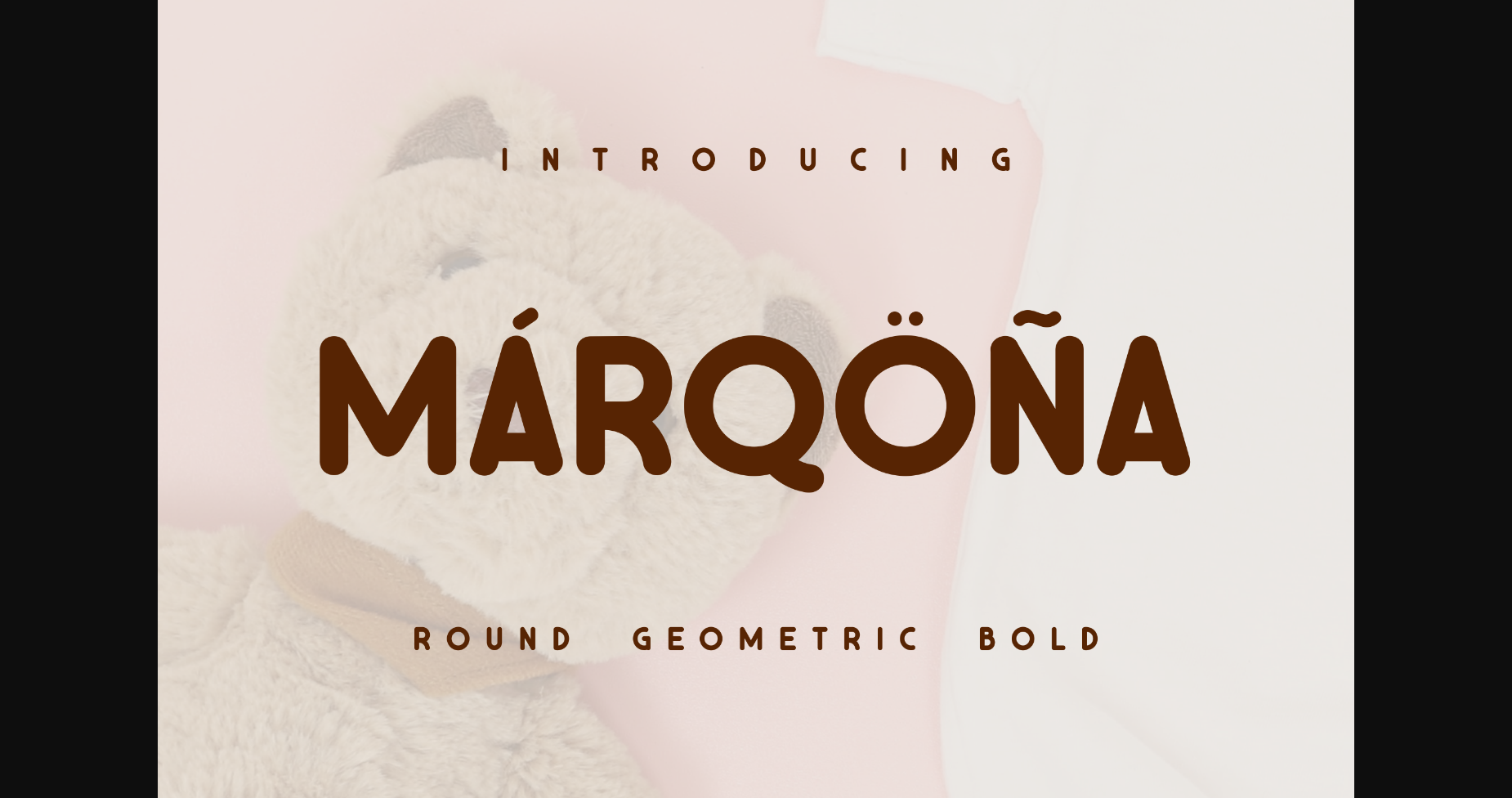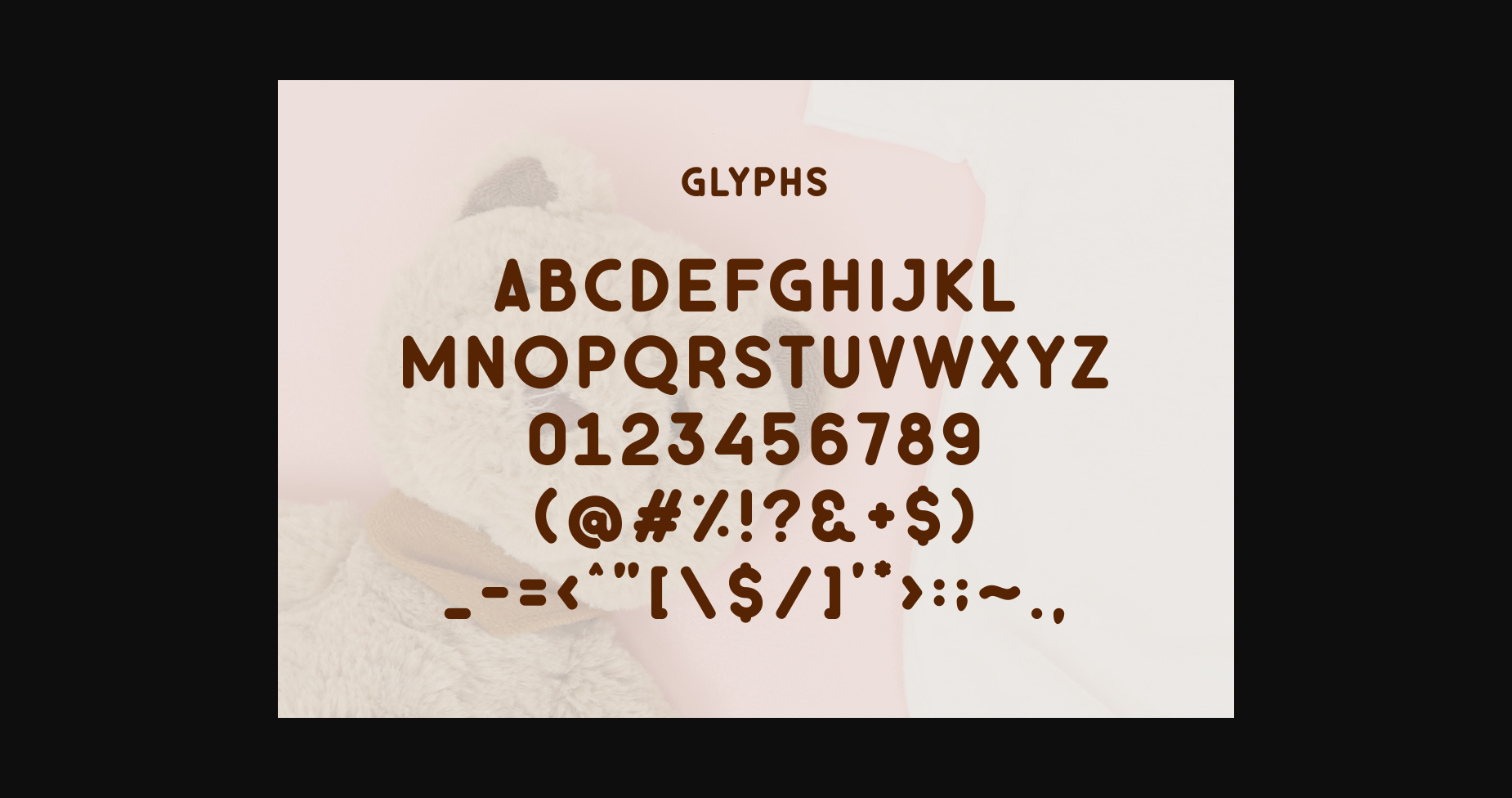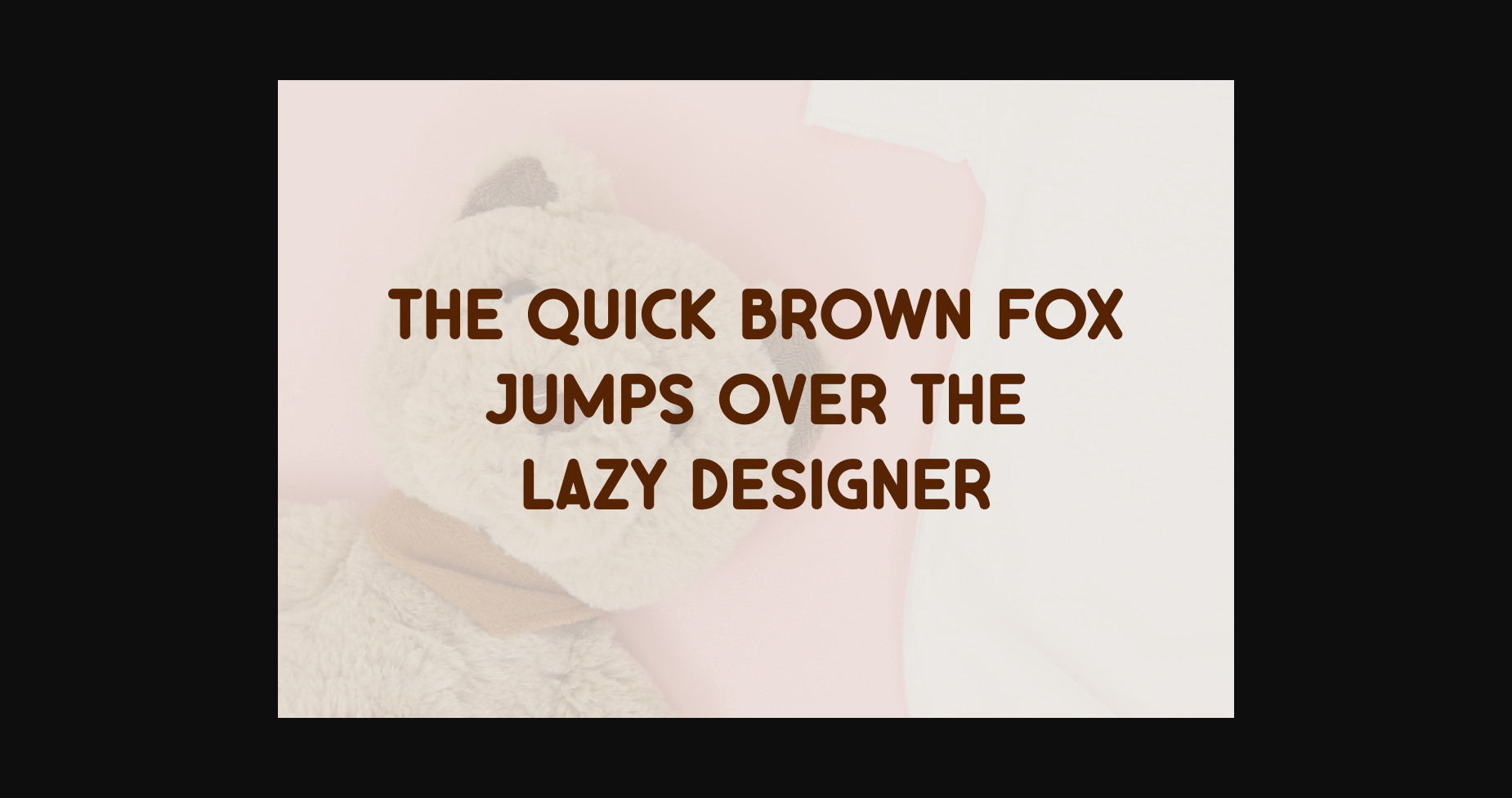
Marqona Font
About Marqona Font
Marqona is a friendly sans serif font that radiates positivity and approachability. Its rounded characters and smooth curves create a soft and welcoming feel, perfect for designs that require a friendly touch. This font is versatile and works well for both display and body text, making it a great choice for branding, packaging, and web design. Marqona is a font that adds a touch of warmth and friendliness to any project.